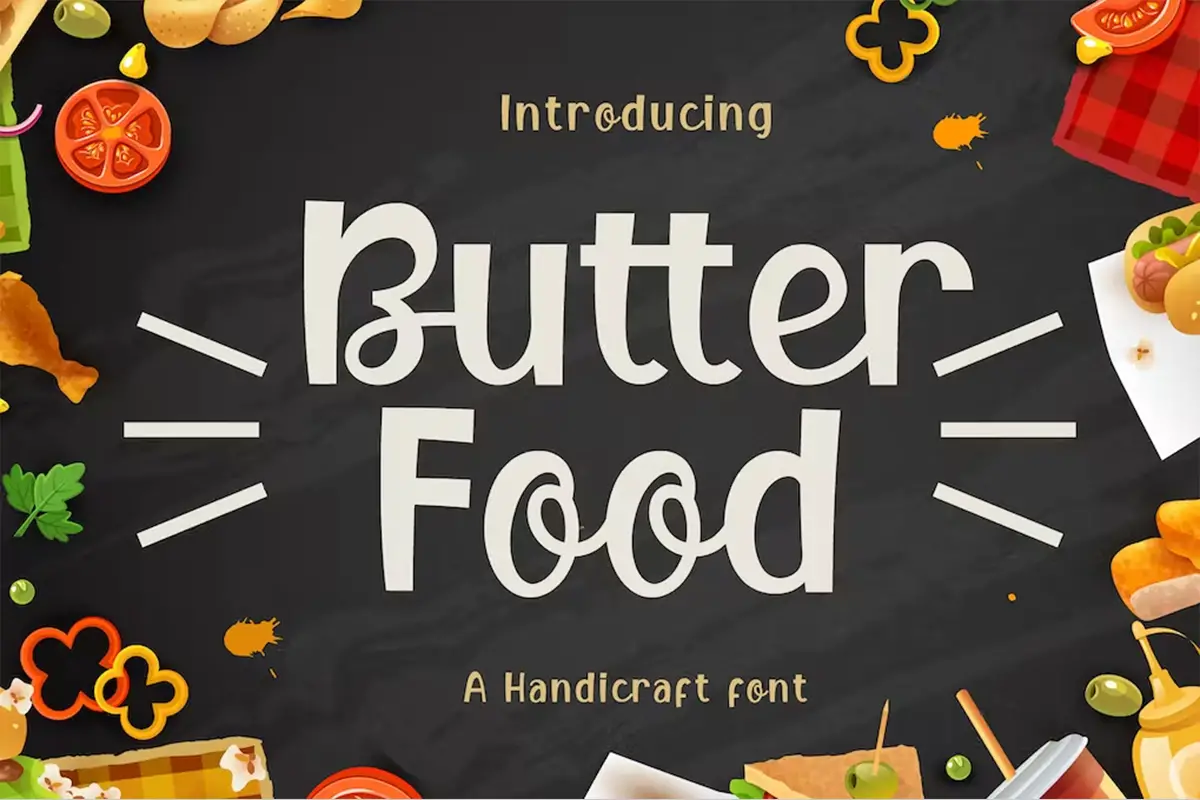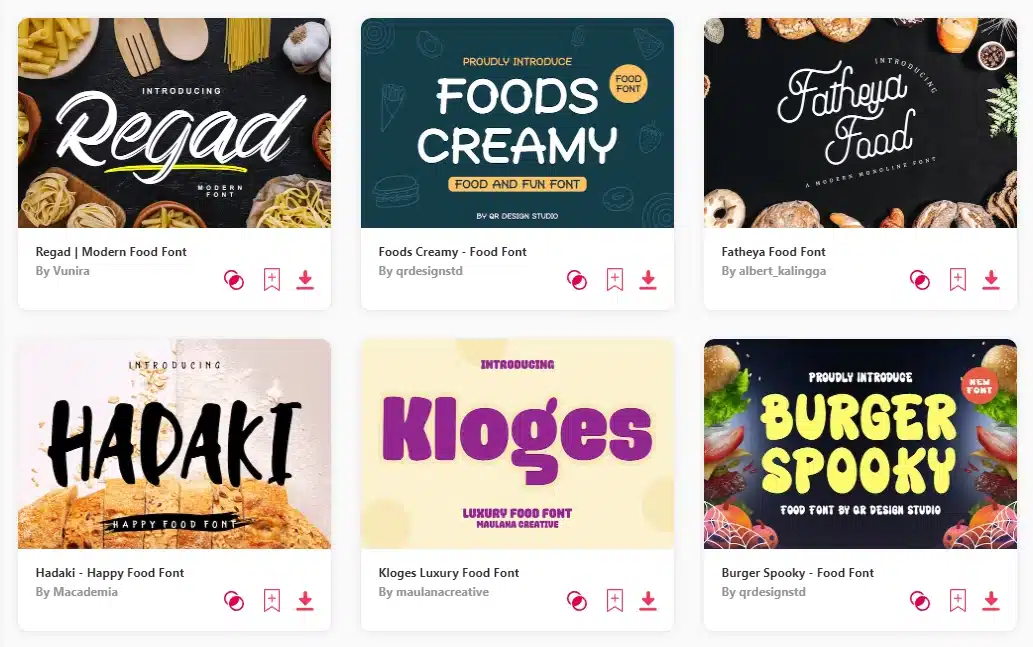
Top 20+ Fonts for Foodies: A Delicious Guide to the Best Food Fonts
There are many factors to consider when deciding best food fonts for packaging. The type of food, the target audience, and the overall look and feel of the packaging all play a role in choosing the right font. With so many options available, it can be tough to know where to start. Here are a few tips to help you choose the best font for your food packaging.
It depends on the specific product and the overall look the company is looking for. In general, some tips for choosing a font for food packaging include making sure that the font is easy to read and avoiding overly decorative fonts that could make the text difficult to read.
Designing food packaging is a complex process that considers many factors, including the type of food, the target audience, and the product’s overall aesthetic. One important factor in this process is choosing the right font. The font you choose can convey a lot about your product, so it’s important to ensure it sends the right message.
In this article, we’ll explore some of the best food fonts for food packaging and discuss how to choose the right one for your product.
1. Regad Modern Food Font
Regad | Modern Food Font
Regad | Modern Food Font.
Regad Modern Food Font is a typeface created by graphic designer Rene Bieder. It is characterized by its clean, modern look and its unique take on the classic serif typeface.
Regad Modern Food Font is perfect for use in branding, packaging, and other design projects that require a clean and modern aesthetic. It is also a great choice for menus, recipe books, and other food-related publications.
2. Hadaki – Happy Food Font
Hadaki - Happy Food Font
Hadaki is a happy food font that was created by Japanese typeface designer Yamamoto Masayuki. The font is based on the popular manga and anime series, Hadakikko Gourmet.
The font is available in two styles, regular and bold. It includes Latin, Japanese, and Cyrillic characters.
3. Fatheya Food Font
Fatheya Food Font
Fatheya Food Font is a typeface created by Mohamed Gaber in 2016. It is based on the Kufi style of Arabic calligraphy. Fatheya Food Font was designed to be used for food packaging and labeling, as well as other applications such as menus, branding, and advertising.
4. Hungry Chalk Typeface + Extras
Hungry Chalk Typeface + Extras
Hungry Chalk Typeface Extras is an all-new collection of hand-drawn typefaces with a playful, childlike quality. The set includes four different typefaces, each with its own unique personality. In addition to the regular weight fonts, the set also includes a light weight font, as well as two sets of dingbats.
5. Butter Food – Handcraft Display Font
Butter Food - Handcraft Display Font
Butter Food is a handcrafted display font with a unique, vintage feel. The font was created by designer Jeremy Vessey and is perfect for adding a touch of personality to any design.
Butter Food is perfect for logo design, product packaging, web design, and more. The font includes both upper and lowercase letters, numbers, and punctuation. Butter Food is available in two styles – Regular and Distressed.
6. Food Delight Script and Handwritten Font
Food Delight Script and Handwritten Font
There are many ways to add personality to your designs, and one of them is by using fun fonts. Food Delight Script and Handwritten Font are two fonts that will help you achieve a fun and unique look for your projects.